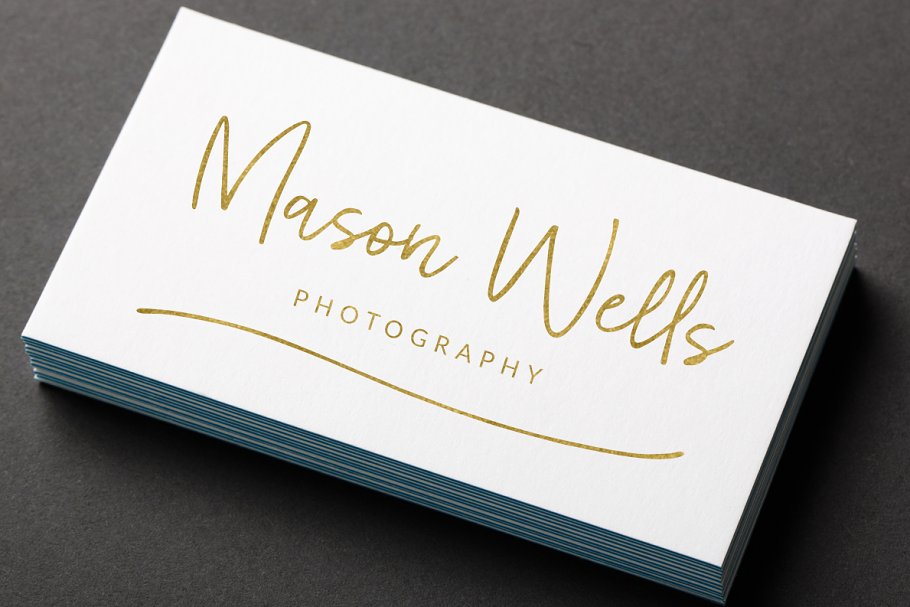
Welcome to Foxglow, the best font for reading script! Created by Angie Baldelomar, Foxglow is a fun, handwritten font with swashes and extras that will bring life to your designs. Whether you're working on wedding invitations, branding, websites, signage, or any other project, Foxglow will add a sweet, handwritten vibe to your work.
One of the best things about Foxglow is that it comes with tons of features. An Opentype font coded with PUA Unicode, Foxglow offers contextual alternates for double letters and unique pairs like bb, cc, ll, tt, th, and more. This means that you can access extra swashes and more even if you don't have a glyphs panel. We've even included a tutorial on how to use all of the font's hidden characters, so you can make the most of this versatile font.
With Foxglow, you don't have to sacrifice functionality for style. This font is perfect for those who want to add a personal touch to their designs. So why settle for a boring, generic font when you can elevate your designs with Foxglow?